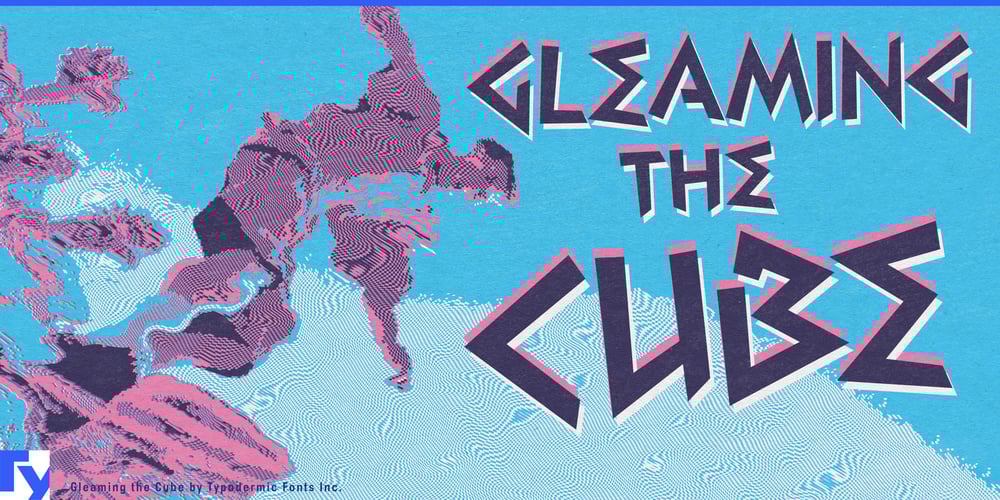
Gleaming the Cube Font Family was designed by Ray Larabie and published by Typodermic. Gleaming the Cube contains 1 styles and family package options. Dudes and dudettes, prepare to have your minds totally blown by Gleaming the Cube—a typeface that doesn’t just nod to the ’80s and ’90s, it kickflips right into your design with a gnarly ollie and sticks the landing!This isn’t your average, lame-o font, bro. Gleaming the Cube is the typographic equivalent of a neon-soaked skate park at midnight. It’s got attitude for days, with capital letters that bookend words like radical parentheses of coolness. It’s like your text is wearing a backwards cap and saying, “Yeah, I’m awesome. Deal with it.” But hold onto your skateboards, because Gleaming the Cube is packing more heat than a fresh pack of Garbage Pail Kids cards. We’re talking OpenType combination ligatures that’ll make your eyeballs do a 360° spin. These aren’t just letters; they’re acrobats pulling off sick typographic tricks that’ll have your audience gasping, “No way, dude!”And just when you think it can’t get any more bodacious, BAM! Gleaming the Cube hits you with symbols so wild, they make Sonic the Hedgehog look like he’s moving in slow-mo. These aren’t just punctuation marks; they’re visual exclamation points that scream “Cowabunga!” Speaking of languages, this typeface is a total globe-trotter. It’s fluent in more tongues than that exchange student who know how to kiss. From Afaan Oromo to Zuni, Gleaming the Cube ensures your rad message maintains its tubular essence across borders. It’s like a linguistic world tour, but with more neon and less jetlag.In a world of vanilla fonts, Gleaming the Cube is a double scoop of bubblegum ice cream with extra sprinkles and a cherry on top. It’s not just a typeface; it’s a time machine fueled by Jolt Cola and the righteous power of sheer awesomeness. Get Gleaming the Cube now and inject some maximum ’90s vibes into your next project.